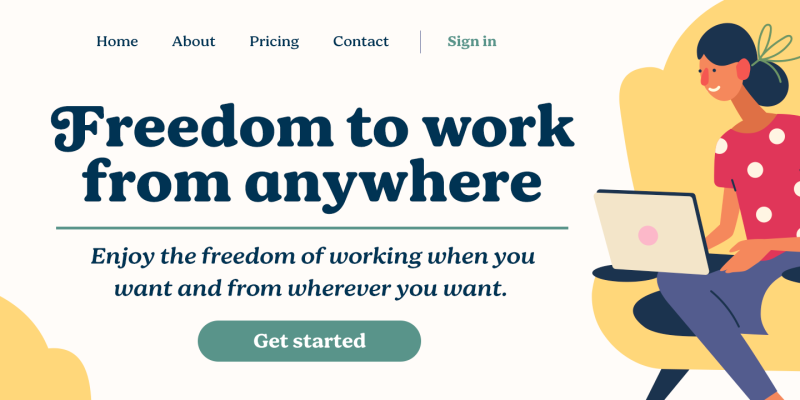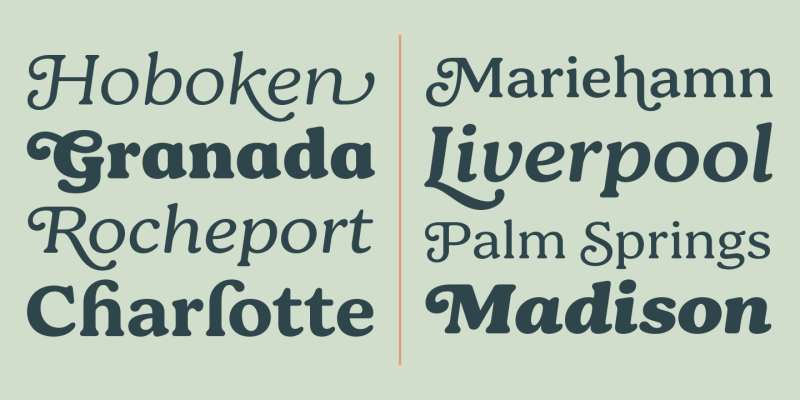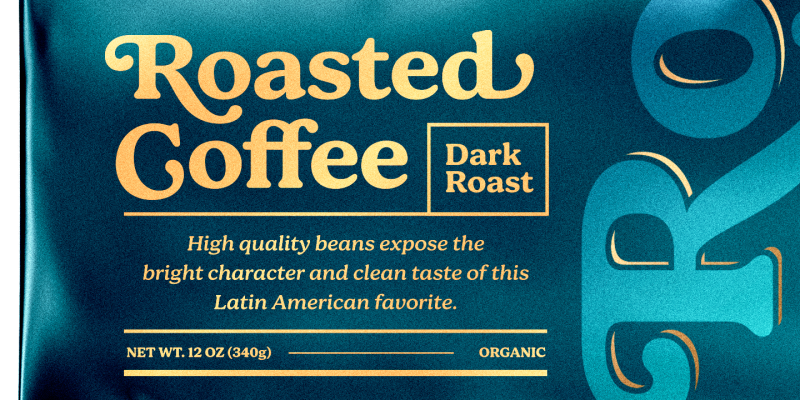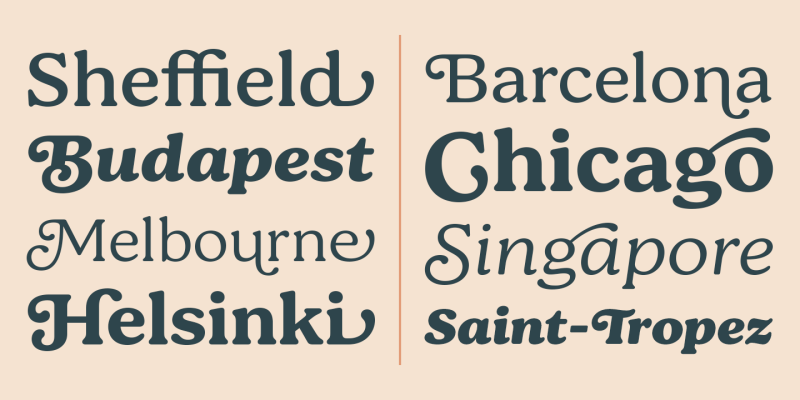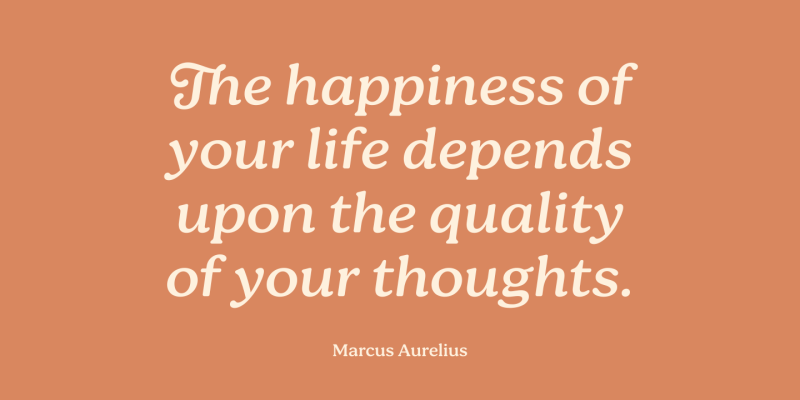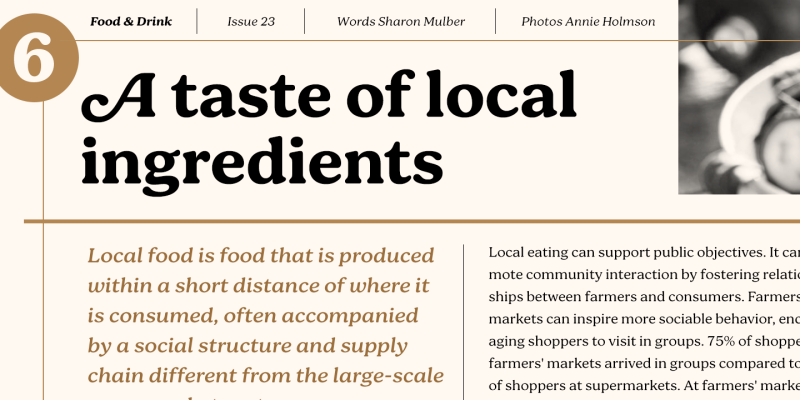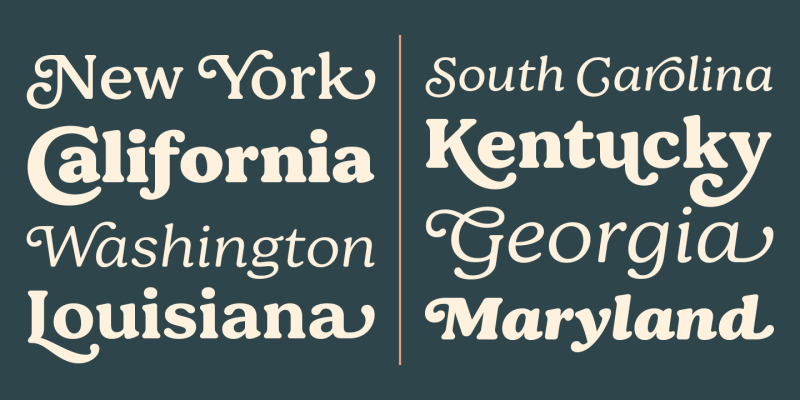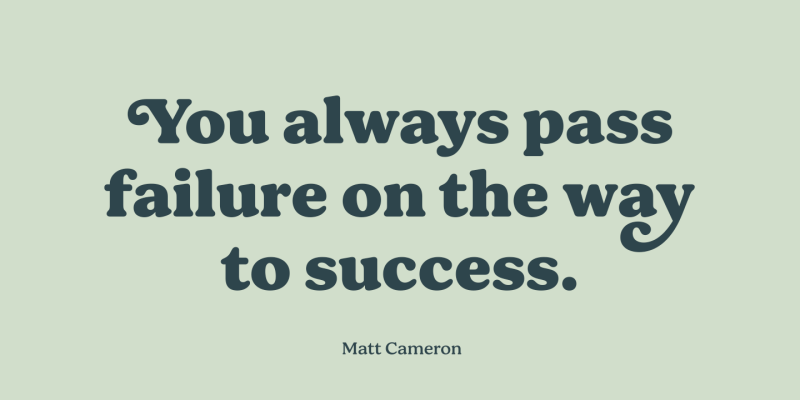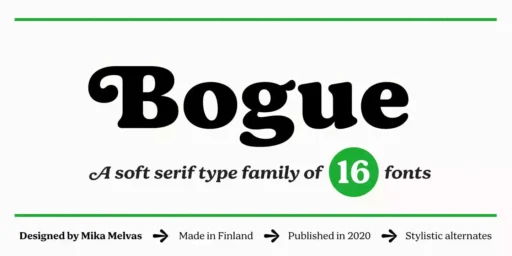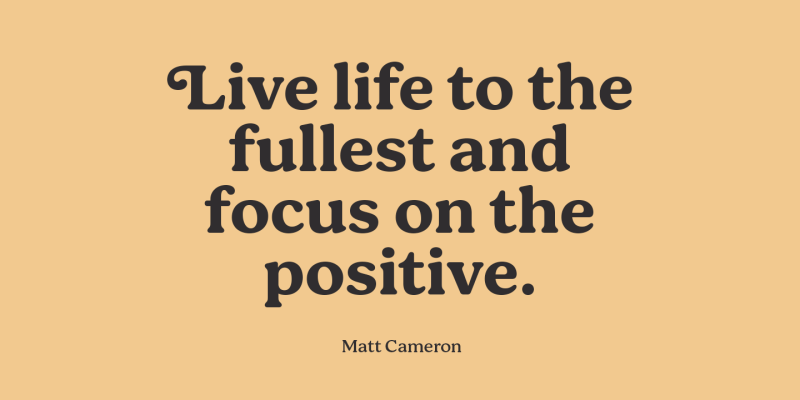
Bogue Font
Bogue is a robust serif font family, which comes in eight weights plus italics. The soft shapes and round corners define its friendly and open personality, hence, it is perfect for the designs that need to communicate warmth and friendliness. A touch of retro feeling in its design gives a rather subtle charm and depth, which is the perfect mixture of the old and the new.
Bogue is not just pretty; it is functional. A million of stylistic alternates come as a part of the package and give a designer the freedom to modify his typography and make a new design. It enables you to put your personality into your work so that your designs look unique.
One of the most significant advantages of Bogue is its versatility. Its applications range from logos and branding to editorial design, web design, and package design. Its friendly nature and soft serifs make it an ideal option for a creation of powerful logos and memorable branding. Because of its clean and legible structure that ensures high readability, it is a perfect font for web design and package design.
The varied use of Bogue transcends its application in text settings too. No matter if you are creating short, strong snippets and titles or longer text such as lead paragraphs and body texts, Bogue does really great. Its gentle serifs and curved forms are ideal for brief texts, where the focus is on effect and legibility. At the same time, it’s clean and readable structure prevents it from turning into a challenge in longer passages.
To sum up, if you need a soft serif font with friendly, warm character and a hint of retro charm, Bogue is your typeface. Its all-encompassing weights, stylistic alternates, and broad versatility lead it to be a must-have for designers looking for a complete typeface. Bogue is more than a font; it’s a typeface that can easily adapt to your design requirements and help you create whatever you otherwise imagine.
Where Bogue Font works best
Bogue Font gives long-form text a classic, trustworthy rhythm — ideal for magazine spreads, annual reports and book interiors.
Pair Bogue Font with generous letter-spacing for wordmarks in fashion, hospitality, wine and jewellery branding.
Use Bogue Font for slide titles in Keynote, PowerPoint or Google Slides to add authority without looking dated.
What is Bogue Font good for?